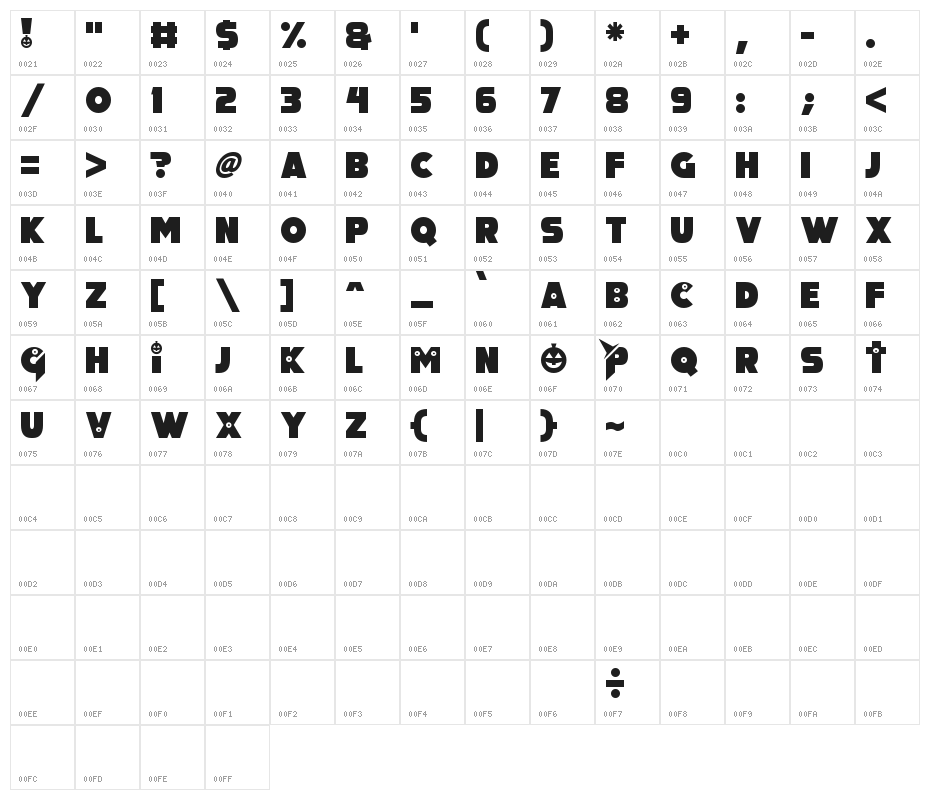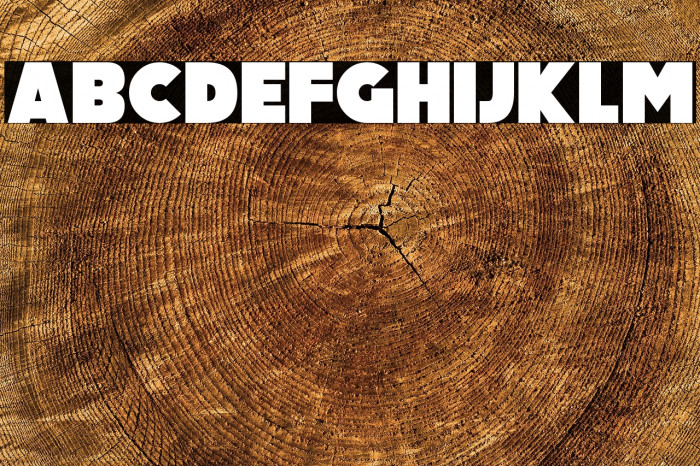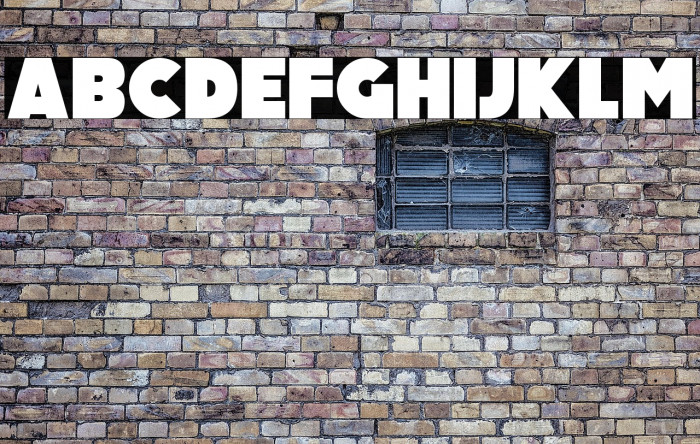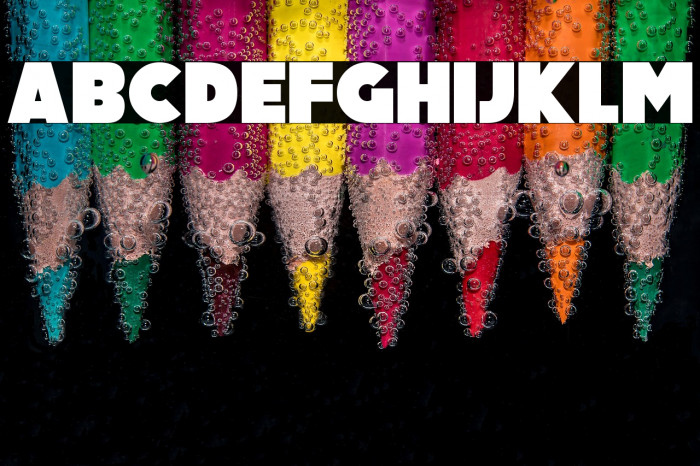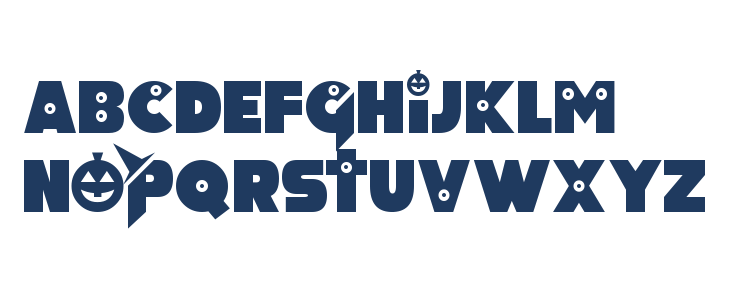
Pumpkin King Font
Pumpkin King Description
This playful and bold font features a Halloween-inspired theme with unique character embellishments. Each letter is crafted with a solid, blocky structure, incorporating whimsical elements like pumpkin faces and spooky motifs. The uppercase and lowercase letters maintain a consistent weight, giving the font a cohesive look. Numbers and special characters are designed with the same playful spirit, making them perfect for themed projects. The font's thick strokes and minimal contrast ensure high readability, while its decorative style adds a fun and festive touch.
| Proposed Projects | Ideal for Halloween invitations, themed posters, party decorations, and festive branding. |